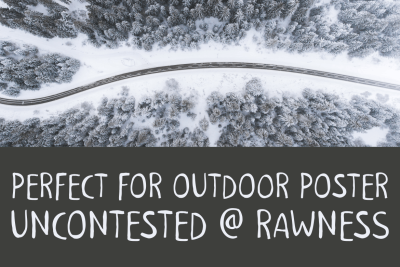
Handwriting font Memphise is a bold, freehand typeface that adds a modern, urban feel to your designs. With all capital letters and slightly irregular strokes, it brings a unique, hand-drawn look. This font is eye-catching and dynamic, perfect for projects that need a raw, authentic touch. Memphiseโs structured yet natural style is approachable, making it stand out without feeling overly formal.
Moreover, handwriting font Memphise is versatile and works well in both digital and print media. Its bold, all-caps design ensures readability, making it ideal for titles and headlines. Memphiseโs organic style suits branding, advertising, and social media graphics, especially where a modern, edgy vibe is needed. Whether for posters, urban brand logos, or inspirational quotes, Memphise adds personality and energy to any project.
Handwriting Font Memphise Ideal Users
Memphise is perfect for creatives, urban brands, and designers seeking an edgy, handcrafted look. For instance, streetwear brands, art studios, and music labels can use it for logos, packaging, and promotional materials. Its hand-drawn quality appeals to audiences who value individuality and authenticity.
Graphic designers and marketers in fashion, entertainment, or lifestyle industries will also benefit from Memphise. Its clean yet free-spirited style makes it ideal for social media posts, event posters, and branding materials. Itโs especially effective in designs that need a bold, unpolished look, giving content a sense of movement and energy. Memphiseโs urban appeal is great for brands aiming to connect with young, creative audiences.
Additionally, this font works well in personal projects and creative portfolios. Its freehand, all-caps style is perfect for showcasing work with a unique edge. Whether used for titles, headings, or quotes, Memphise brings an artsy, authentic vibe to each piece. Overall, handwriting font Memphise is a versatile, modern option for anyone looking to make a statement with a bold, handcrafted touch.